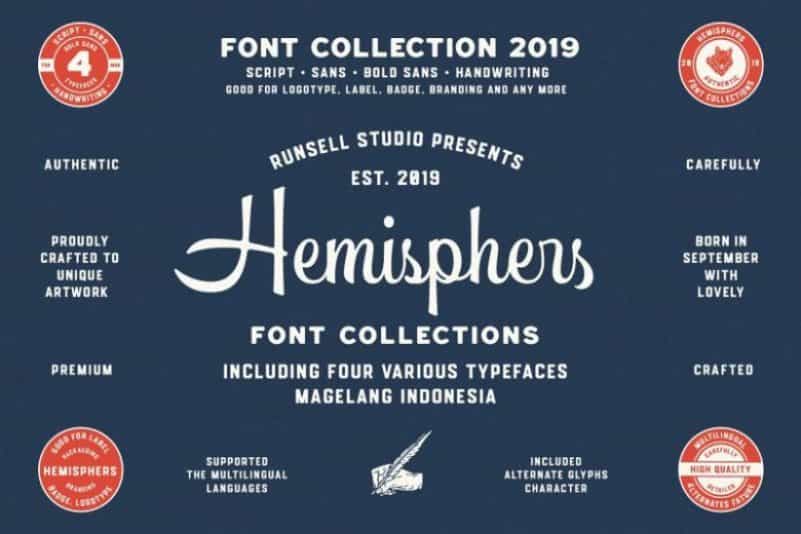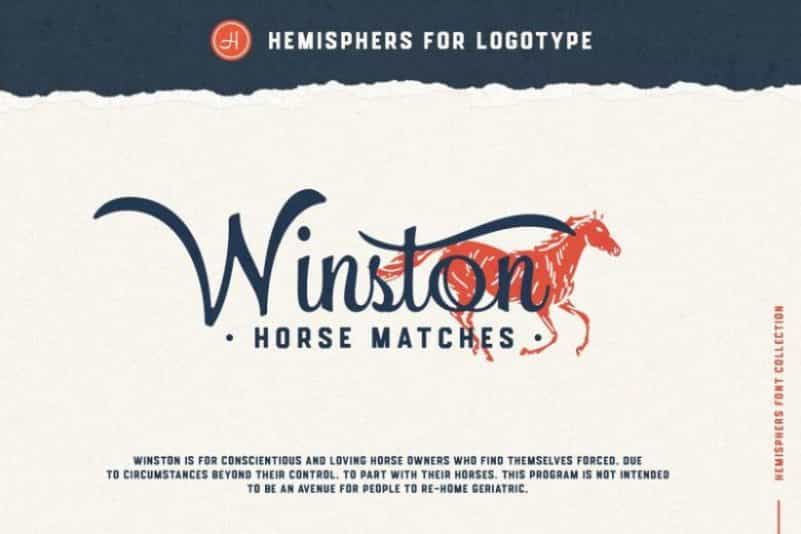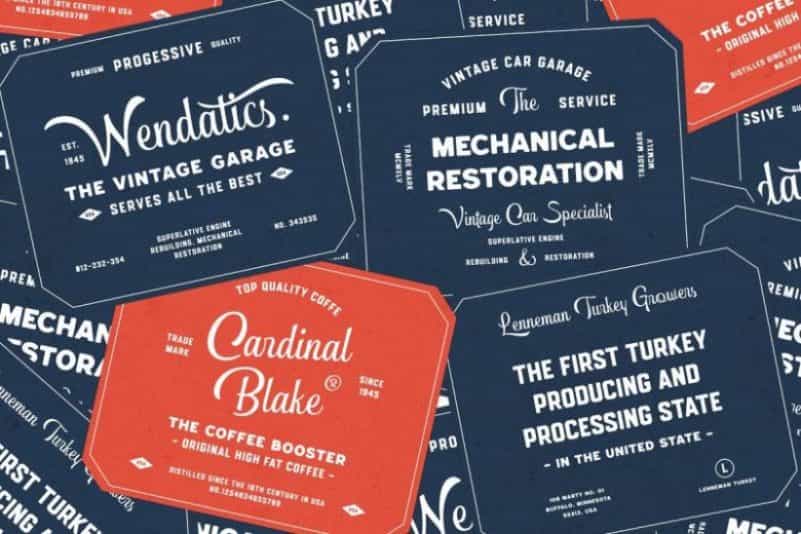
Introducing Hemisphers Font Collection. As for the typeface, there is script, sans, bold sans, and handwriting that perfectly embodies clean and classy design. The project inspired by unique labels, badge, and packaging. This collections is rounded corner for the organic printing look.